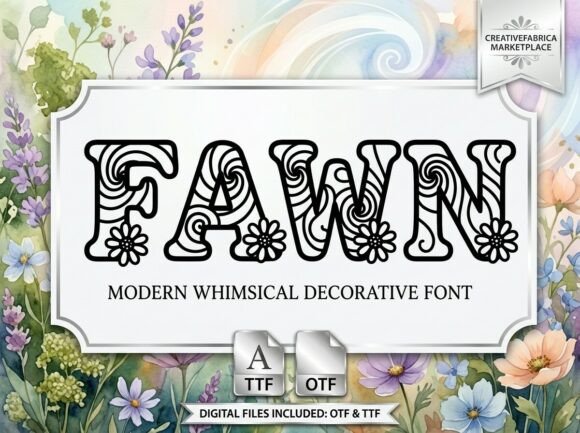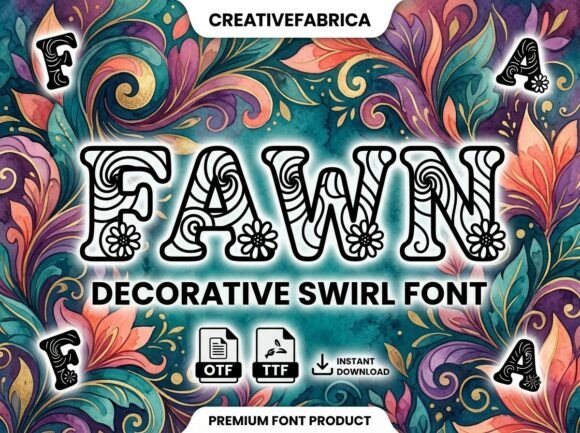
Discover the Whimsical World of Fawn Font
I’ll never forget the design struggle I faced while working on a vibrant festival poster project. My client wanted a font that would capture the essence of their psychedelic art style, but I was stuck. That was until I stumbled upon Fawn Font – an intricate display typeface that instantly resonated with the project’s theme. With its bold, slab-serif letterforms and charming floral blooms, Fawn became the perfect fit. In this article, I’ll share my love for this font, its features, and provide a comprehensive guide on how to make the most of it.
A Personal Review of Fawn Font
What I Love About Fawn Font ✨
- 💥 Unique and eye-catching design: Fawn Font’s bold and vibrant personality makes it perfect for creative agency branding, festival posters, and social media headers.
- ✅ High graphic weight: The font’s dense tapestry of rhythmic, hand-drawn swirls and charming floral blooms make it a great choice for high-impact designs.
- 🌈 Psychedelic-and-painterly soul: Fawn Font’s distinctive style adds a touch of whimsy and artistic flair to any design project.
- ⚠️ Legibility at small sizes: Due to its intricate design, Fawn Font may not be suitable for body text or small font sizes.
- ⚠️ Limited versatility: While Fawn Font is perfect for display text, it may not be the best choice for more formal or traditional designs.
The Backstory of Fawn Font
Fawn Font was designed by a team of creatives who wanted to capture the essence of psychedelic art and whimsical illustration. Inspired by the intricate patterns and bold colors of traditional folk art, they crafted a font that would add a touch of magic to any design project. With its bold, slab-serif letterforms and charming floral blooms, Fawn Font is the perfect choice for designers, crafters, and creative hobbyists looking to add a dash of personality to their work.
| Font Name | Fawn Font |
| What is Fawn Font best used for? | Fawn Font is perfect for creative agency branding, festival posters, artisanal textile labels, and high-impact social media headers. |
| Is Fawn Font suitable for body text? | No, due to its intricate design, Fawn Font is best used for display text and may not be suitable for body text or small font sizes. |